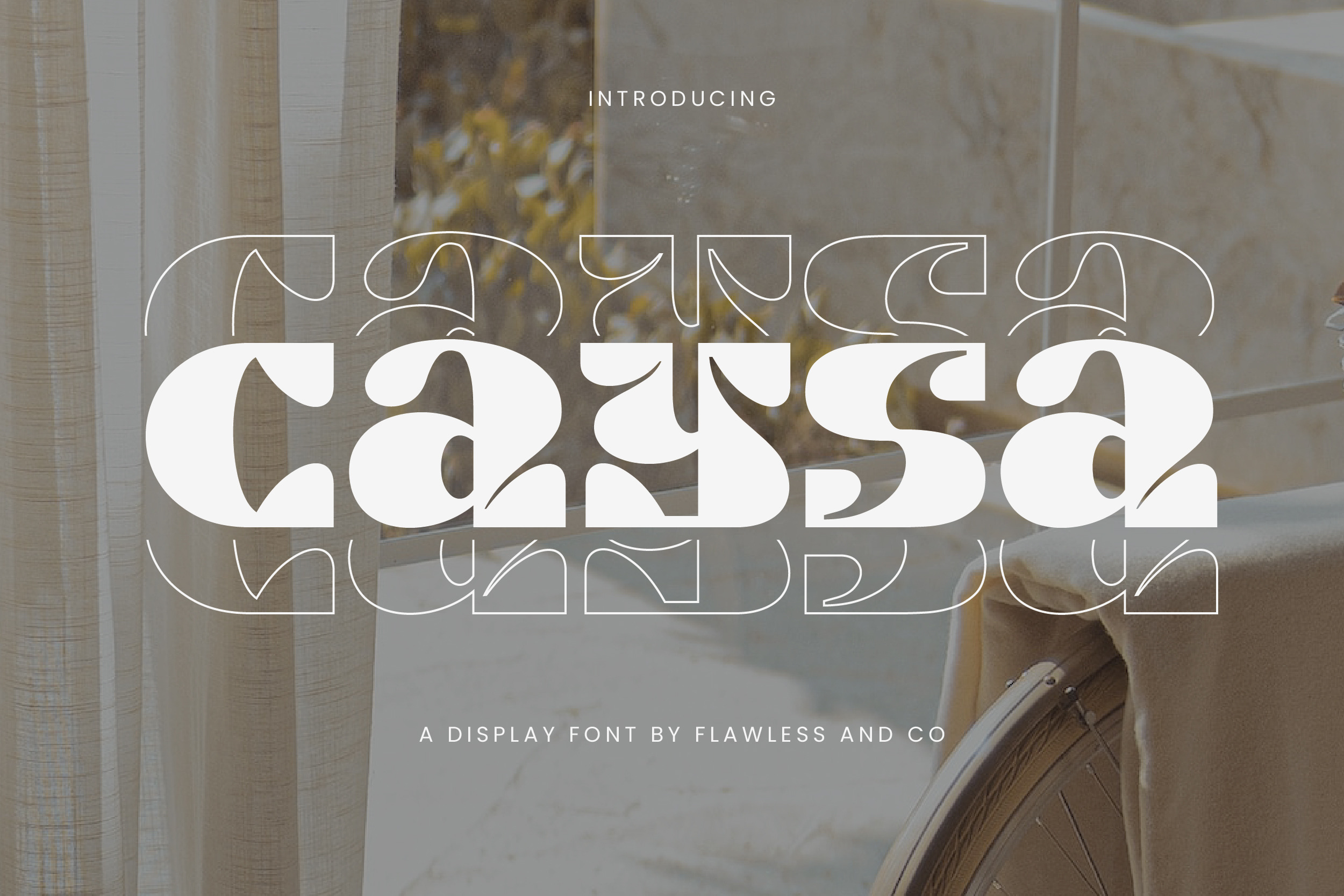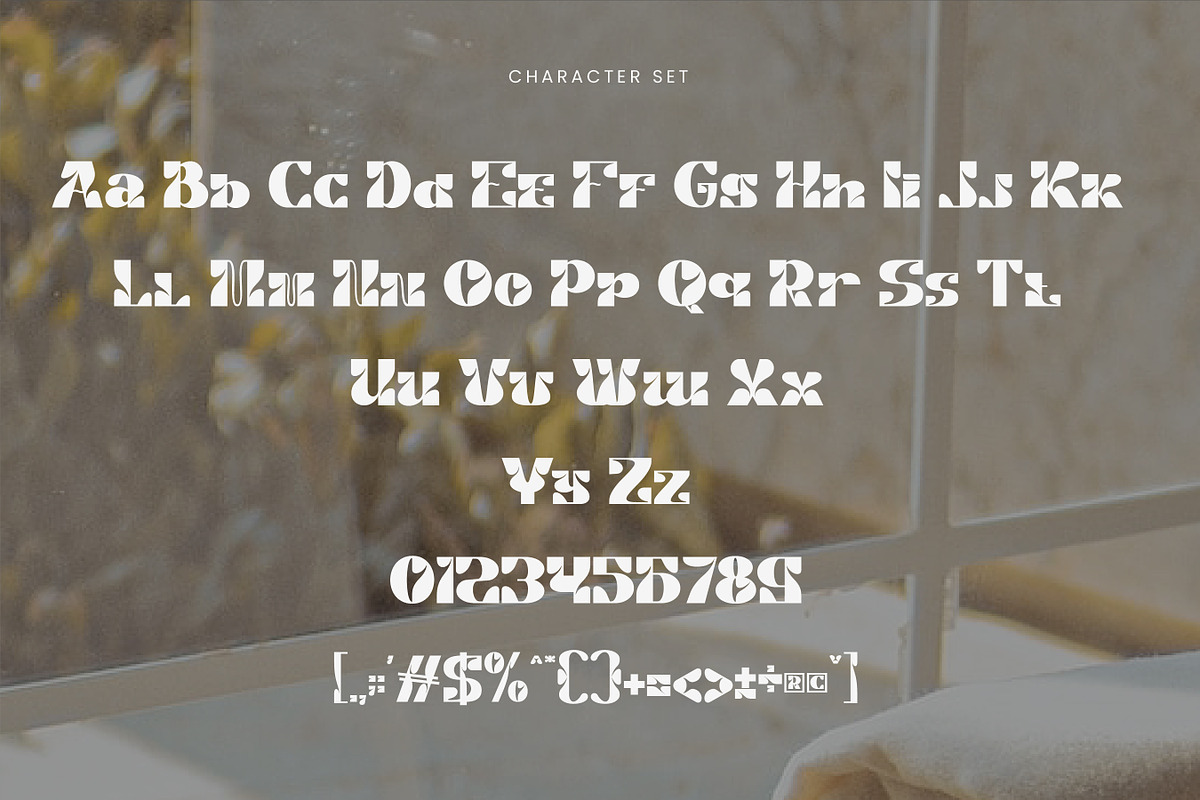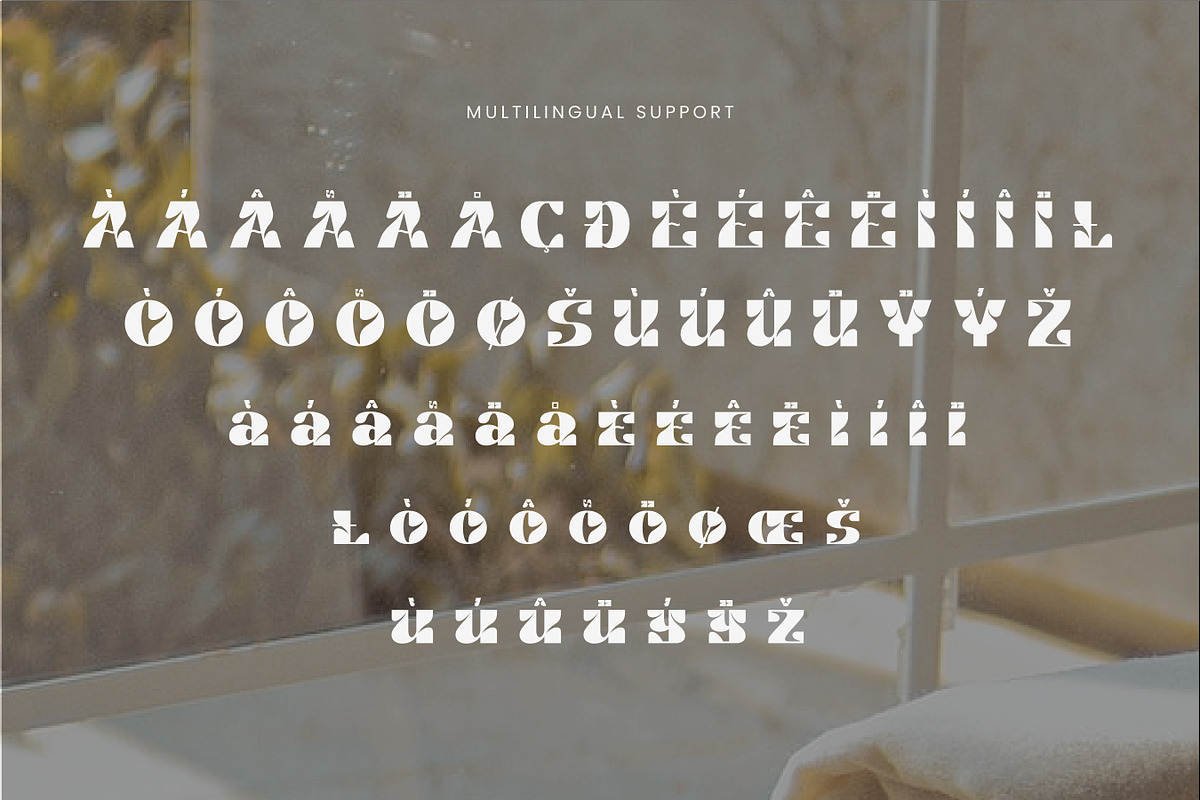
Caysa - Elegant Display Font
Introducing "Caysa" - An Elegant Display Font. Unveil the extraordinary with "Caysa," an exquisite display font that redefines elegance with its distinct and unique design. With its artistic letterforms and captivating style, "Caysa" is crafted to be the centerpiece of your design, setting your projects apart with its unparalleled beauty.
Multilingual Uppercase alphabet A-Z Lowercase alphabet a-z Alternate Character Numbers 0-9 Some punctuation
Flawless and co